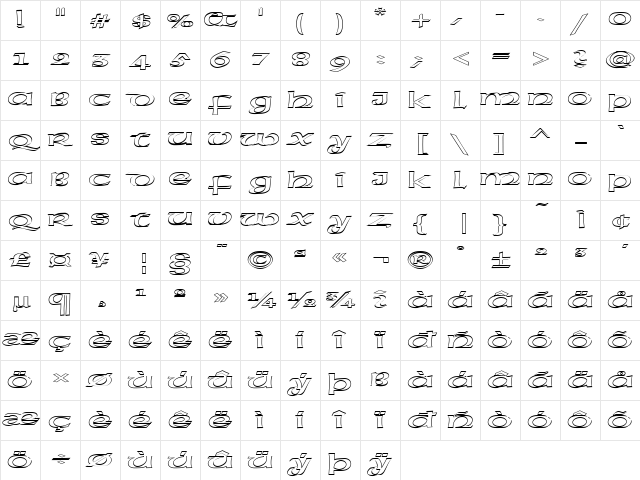
FZ BASIC 43 HOLLOW EX Normal
Design Context for FZ BASIC 43 HOLLOW EX
FZ BASIC 43 HOLLOW EX is a composed and adaptable typeface that performs quietly and consistently across a wide range of design contexts.